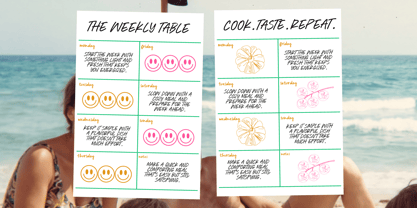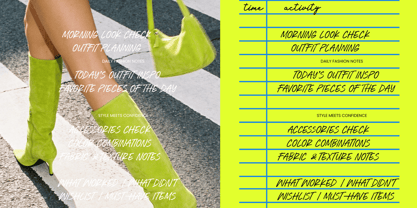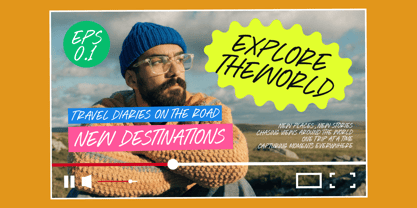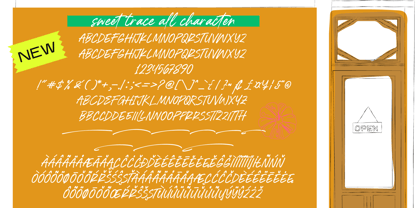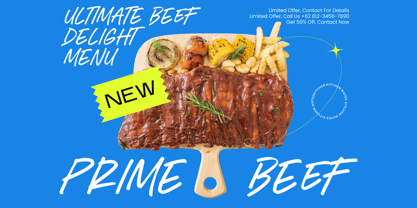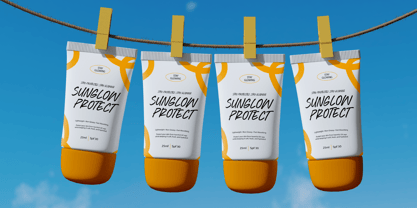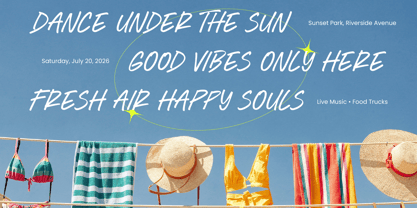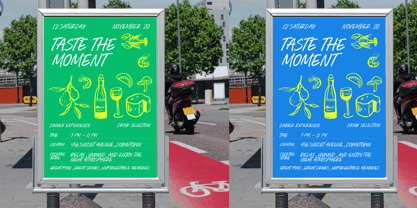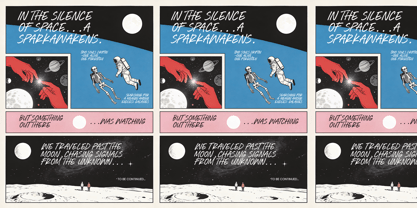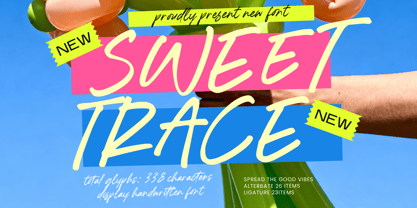
Sweet Trace
von Letterena Studios
Die Schriftfamilie Sweet Trace wurde von Heru Utama Putra entworfen und von Letterena Studios veröffentlicht. Sweet Trace enthält 2 Stile und Familienpaketoptionen. Mehr über diese Familie
Sweet Trace - Display Handwritten Font. This expressive typeface captures the raw, authentic essence of marker-based calligraphy, offering a playful yet professional aesthetic. Designed to stand out, Sweet Trace - Display Handwritten Font features fluid strokes and a dynamic rhythm that brings an instant sense of personality and warmth to any digital or print canvas.
This versatile tool is the perfect choice for modern lifestyle branding, eye-catching packaging, and dynamic social media graphics. Whether you are developing creative advertisements, custom merchandise, or bold editorial designs, Sweet Trace - Display Handwritten Font provides the visual impact needed to engage your audience. It is perfect for projects that require a personal touch without sacrificing commercial clarity and professional polish.
Designer: Heru Utama Putra
Foundry: Letterena Studios